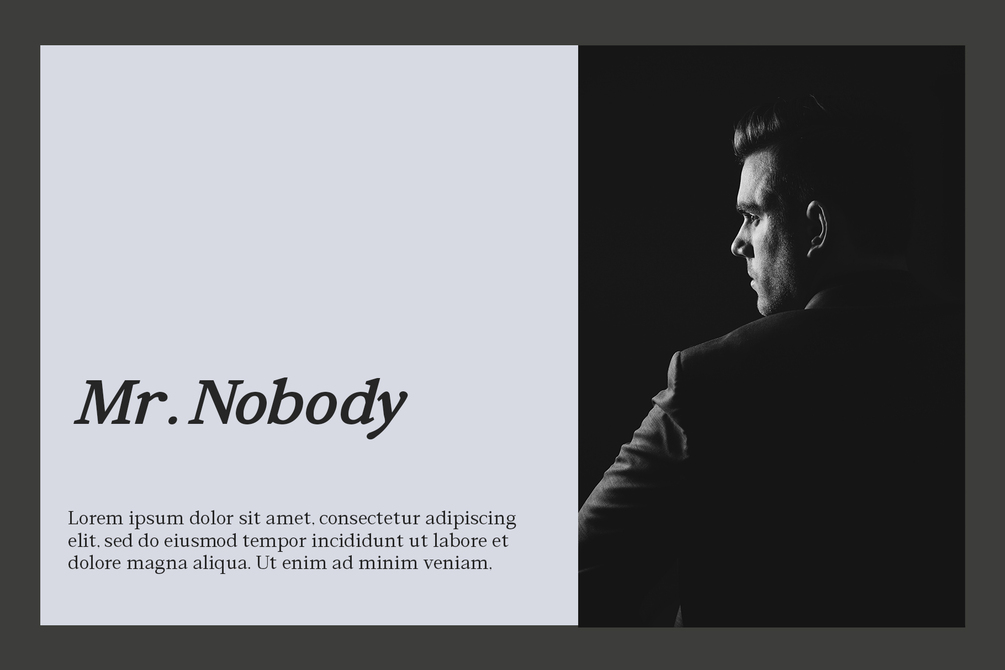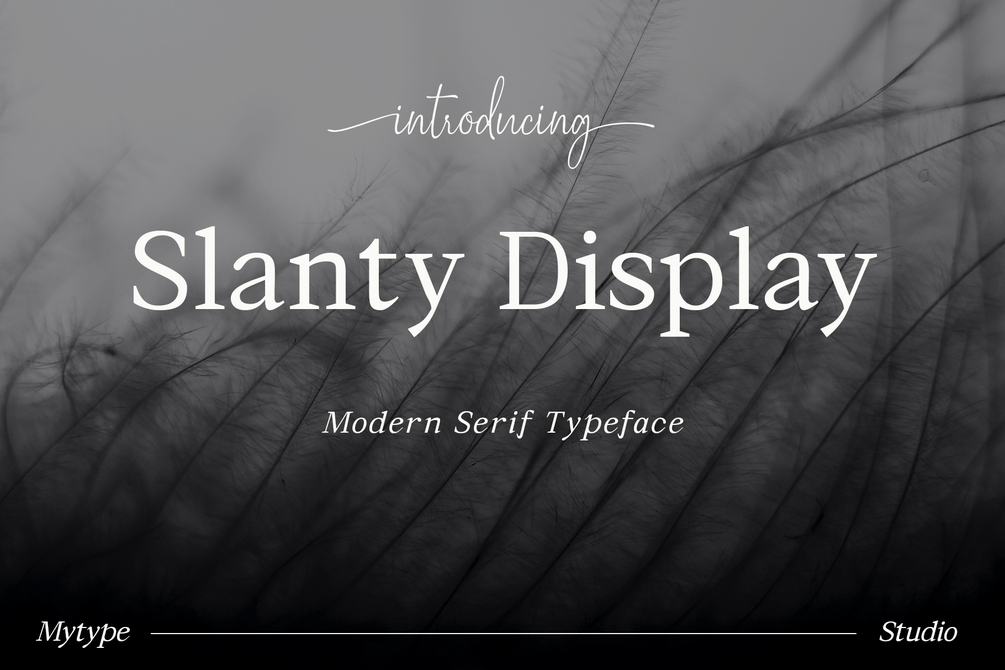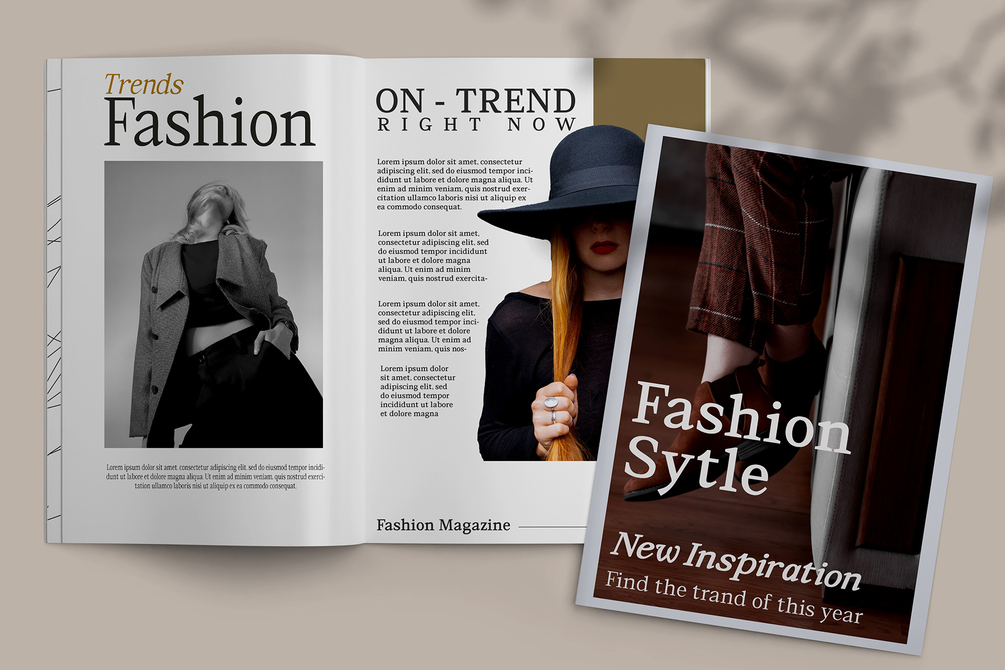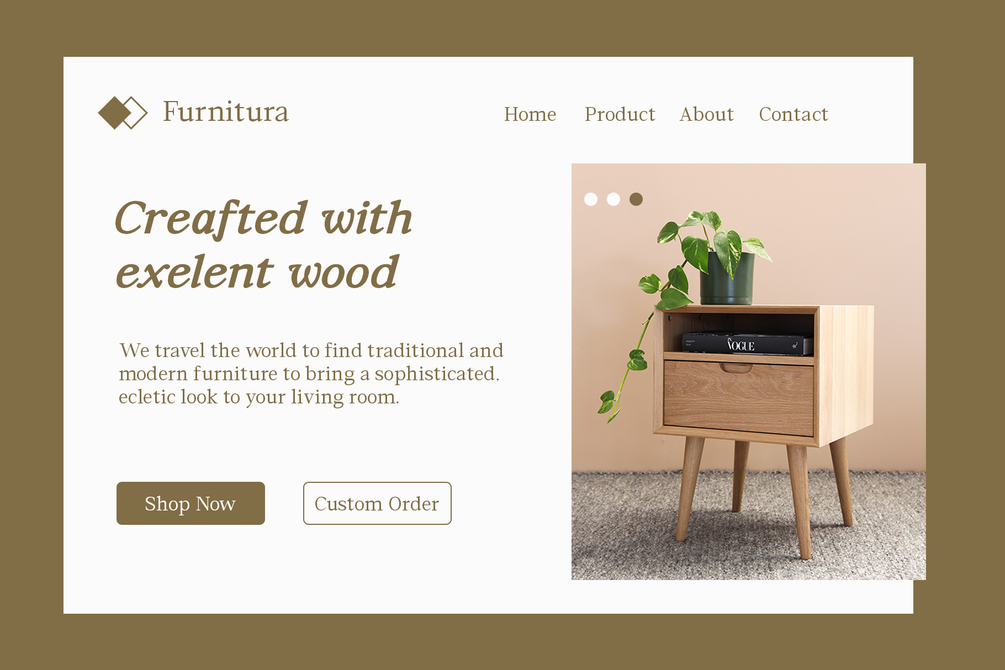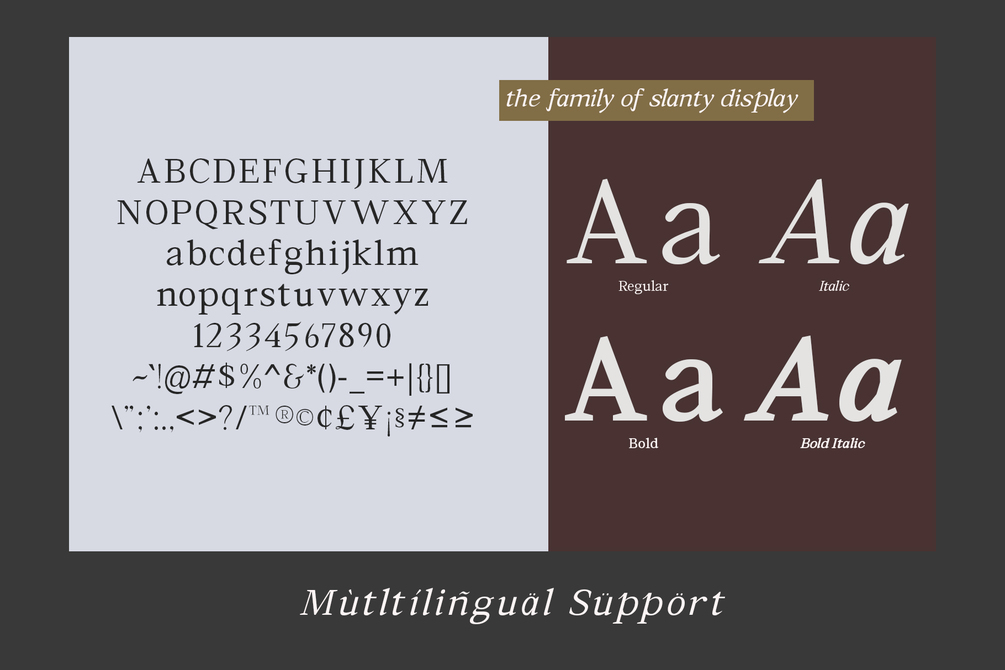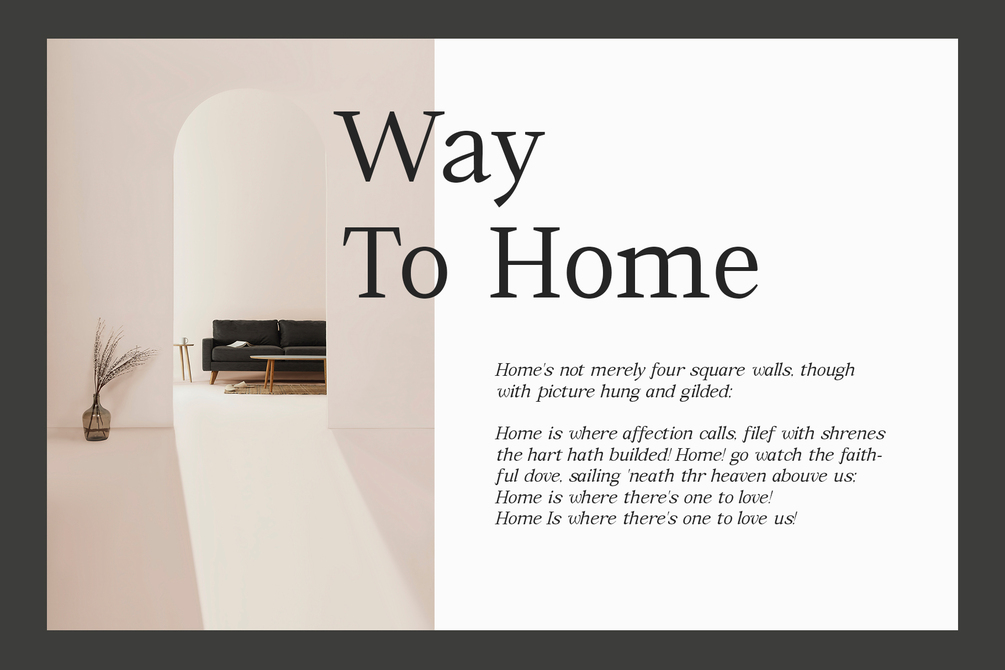
Slanty Display - Serif Typeface
Slanty Display is a modern serif font family that embodies elegance and charm in every character. It is perfect for luxury logos, branding, classy editorial designs, women’s magazines, cosmetic brand, promotional designs, the fashion industry, and more.